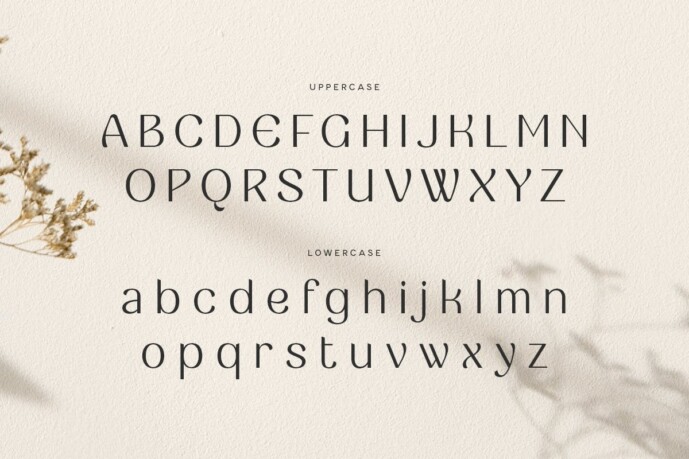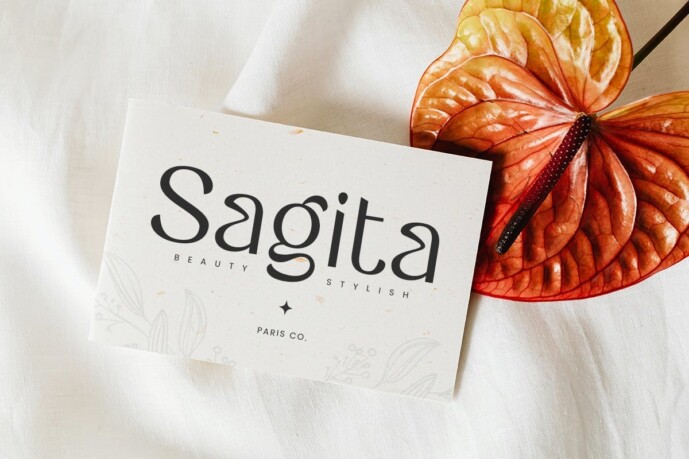
Begonia Sans Font
Designer: HamzStudio
Begonia Sans Font A modern minimalist logo font that we have created especially for the needs of luxury and fashion brands, with additional uniquely shaped characters, will be ready to add value to your brand. It is so nice to call upon a designer or product owner who need solutions to make their design look more elegant and modern. And especially for this font, we have prepared unique characters to help you create unlimited variations for your creative needs.